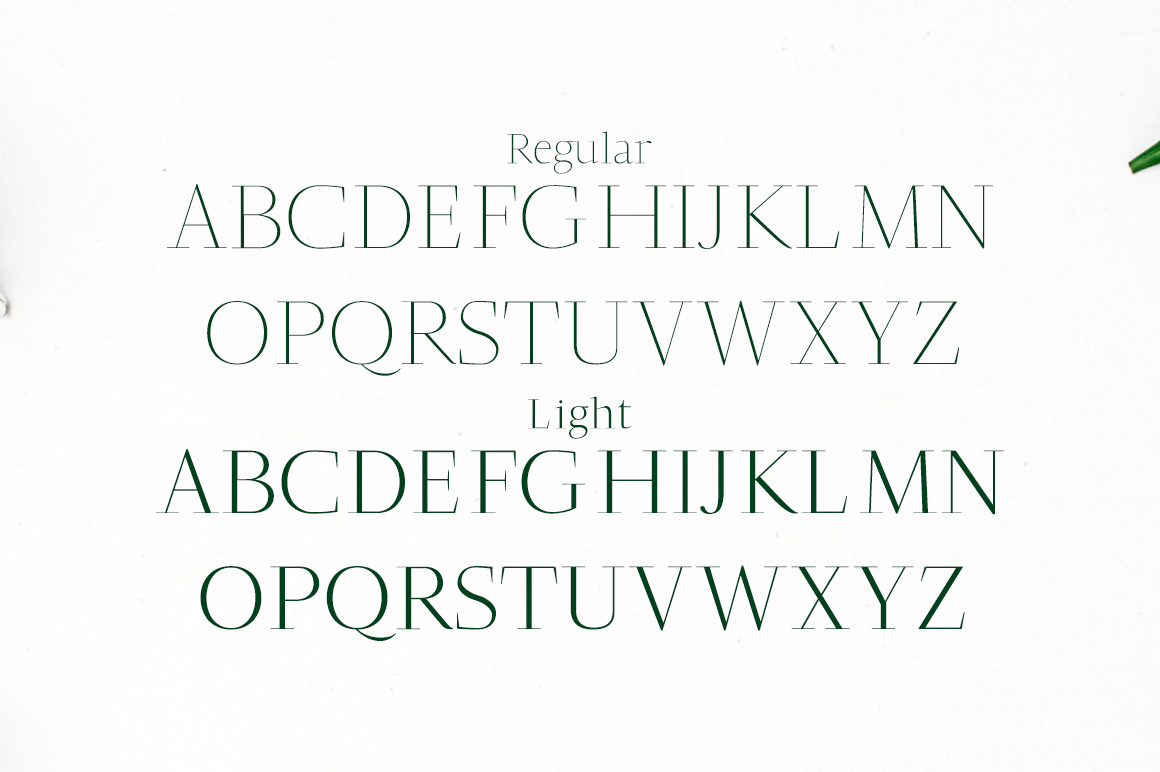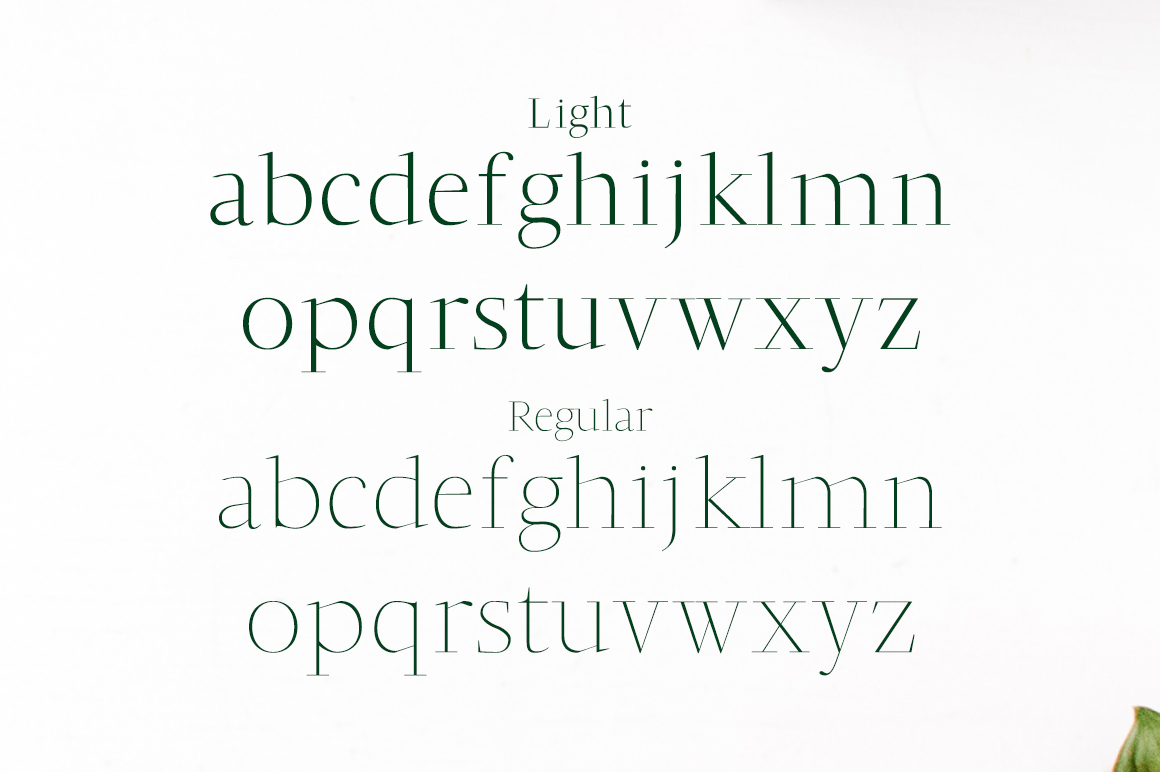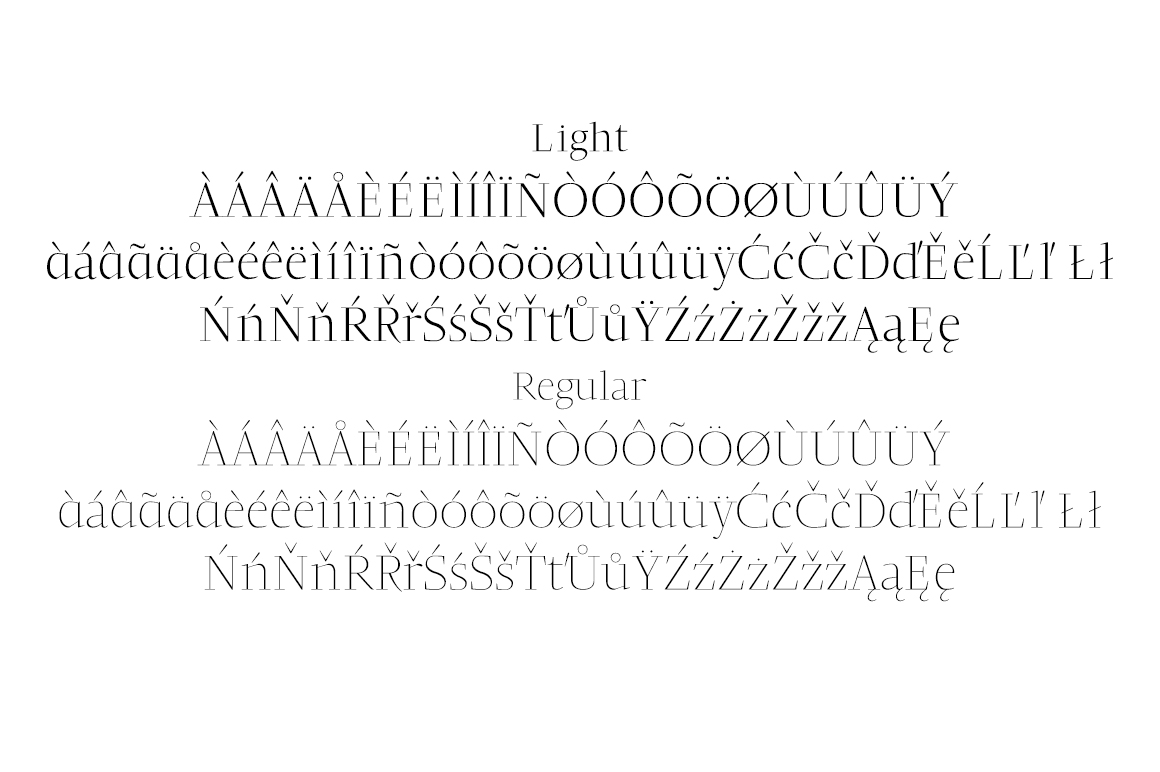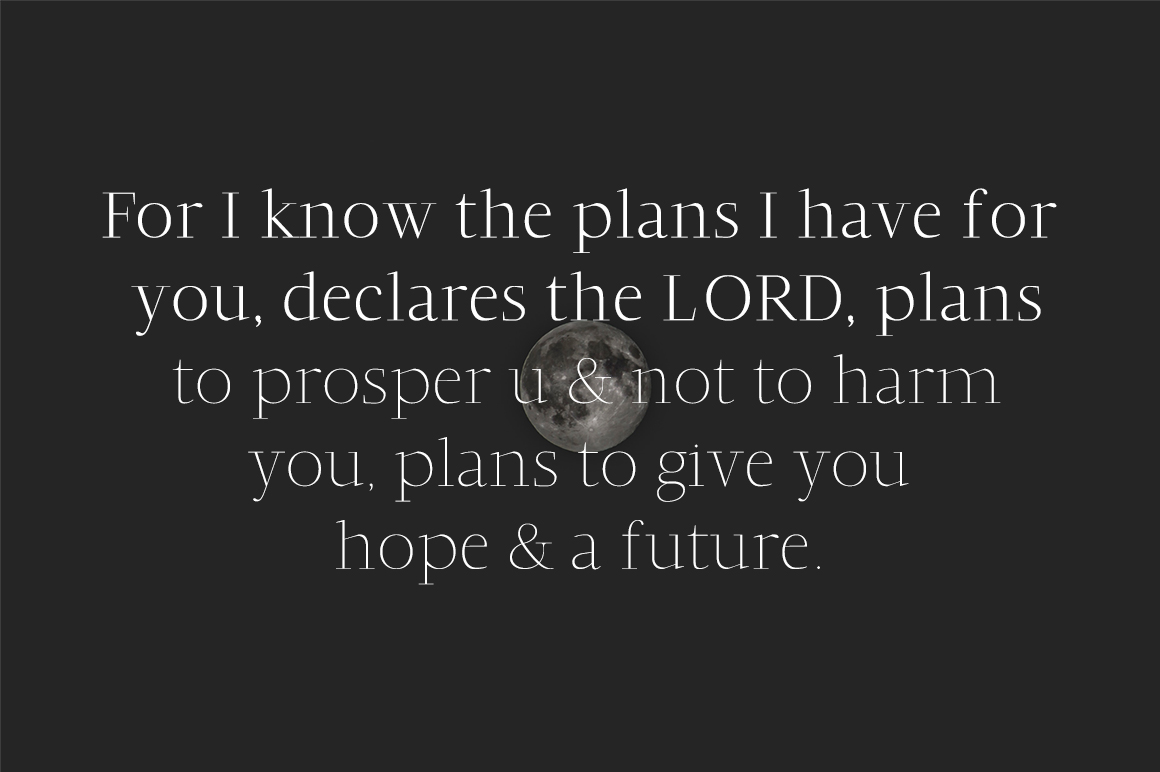
Introduction to Jesusa Font
Extremely thin and delicate, Jesusa is a great serif font for adding some class to your designs.
Its appeal comes from its airiness, and can open up your designs to endless possibilities Add Jesusa, a beautiful serif font, to your font collection today.
Key Features of Jesusa Font